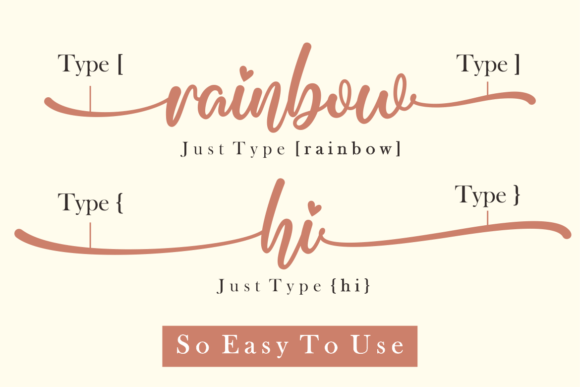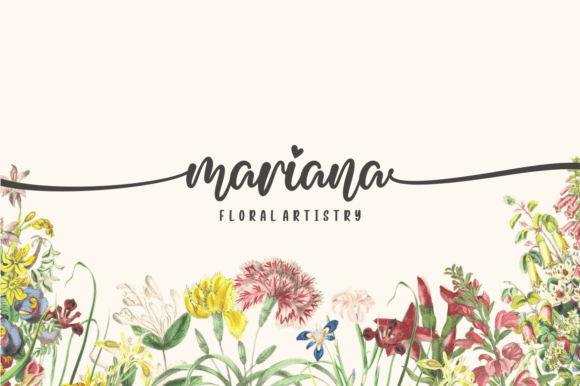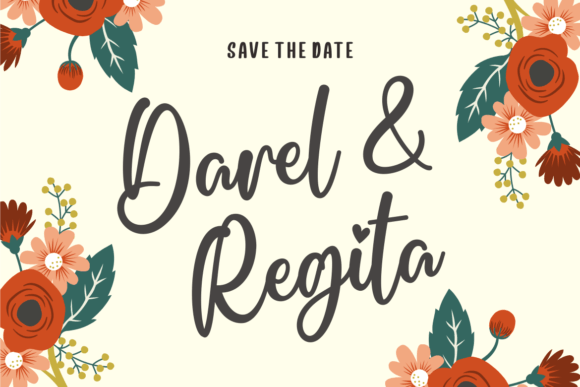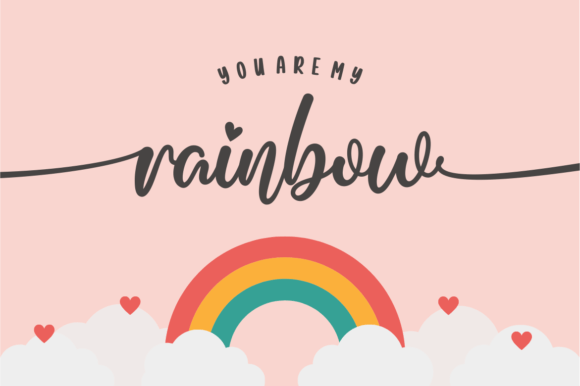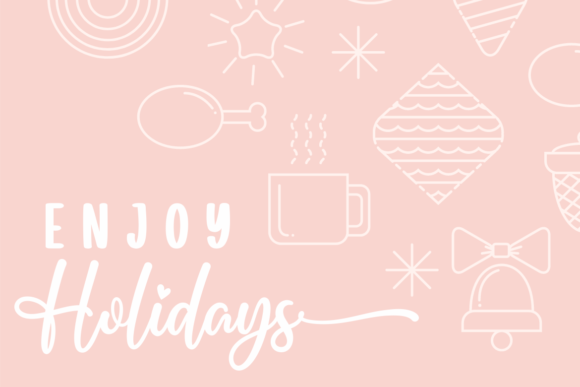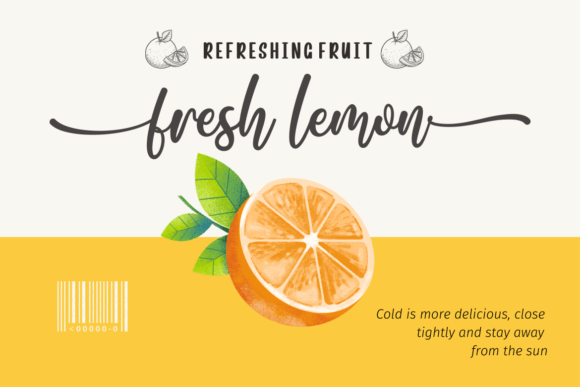
Introduction to Rainbow After Rain Font
Rainbow After Rain Duo is a stylish and delicate duo font (script and sans serif) suitable for a wide spectrum of applications.
From greeting cards to headlines, this font will guarantee a romantic touch to each of your creations Rainbow After Rain Duo is PUA encoded which means you can access all of the glyphs and swashes with ease.
Key Features of Rainbow After Rain Font
Why Choose Rainbow After Rain Font?
Rainbow After Rain Font offers exceptional quality and versatility, making it a valuable addition to your design toolkit. Whether you’re creating for personal projects or commercial use, Rainbow After Rain Font delivers professional results.